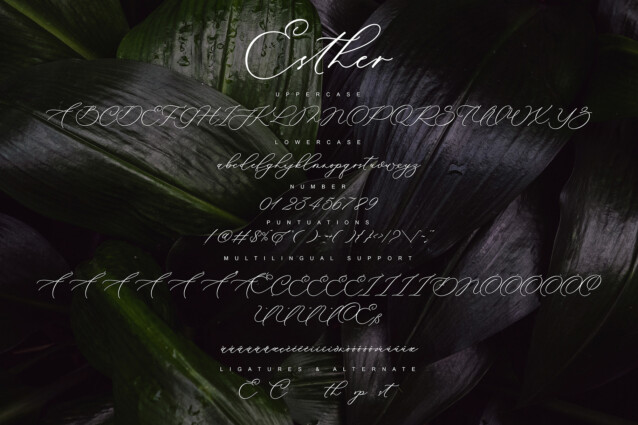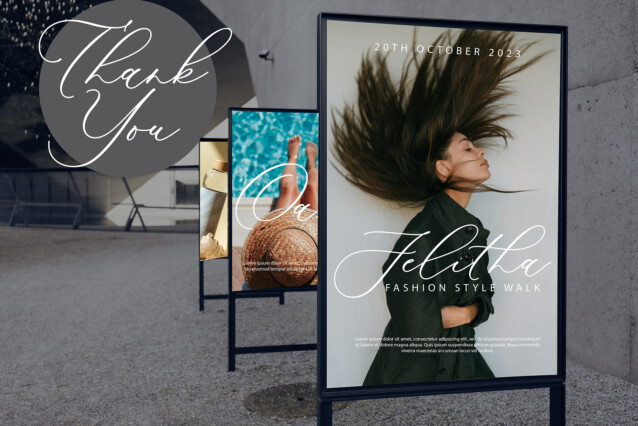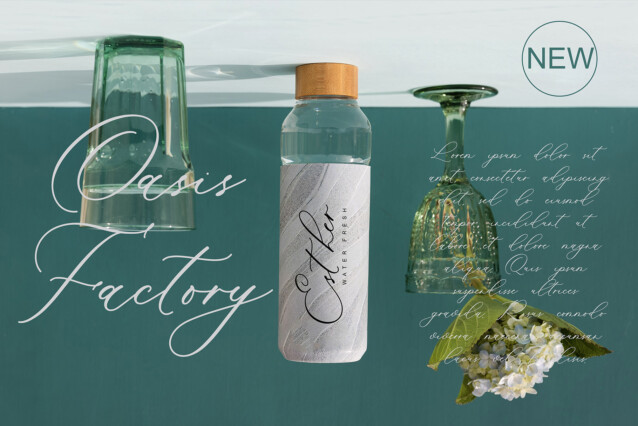
Esther Font is a simple and calligraphy script font. So perfect for you who needs a typeface for logo designs, magazine, social media, brochure, and many more.